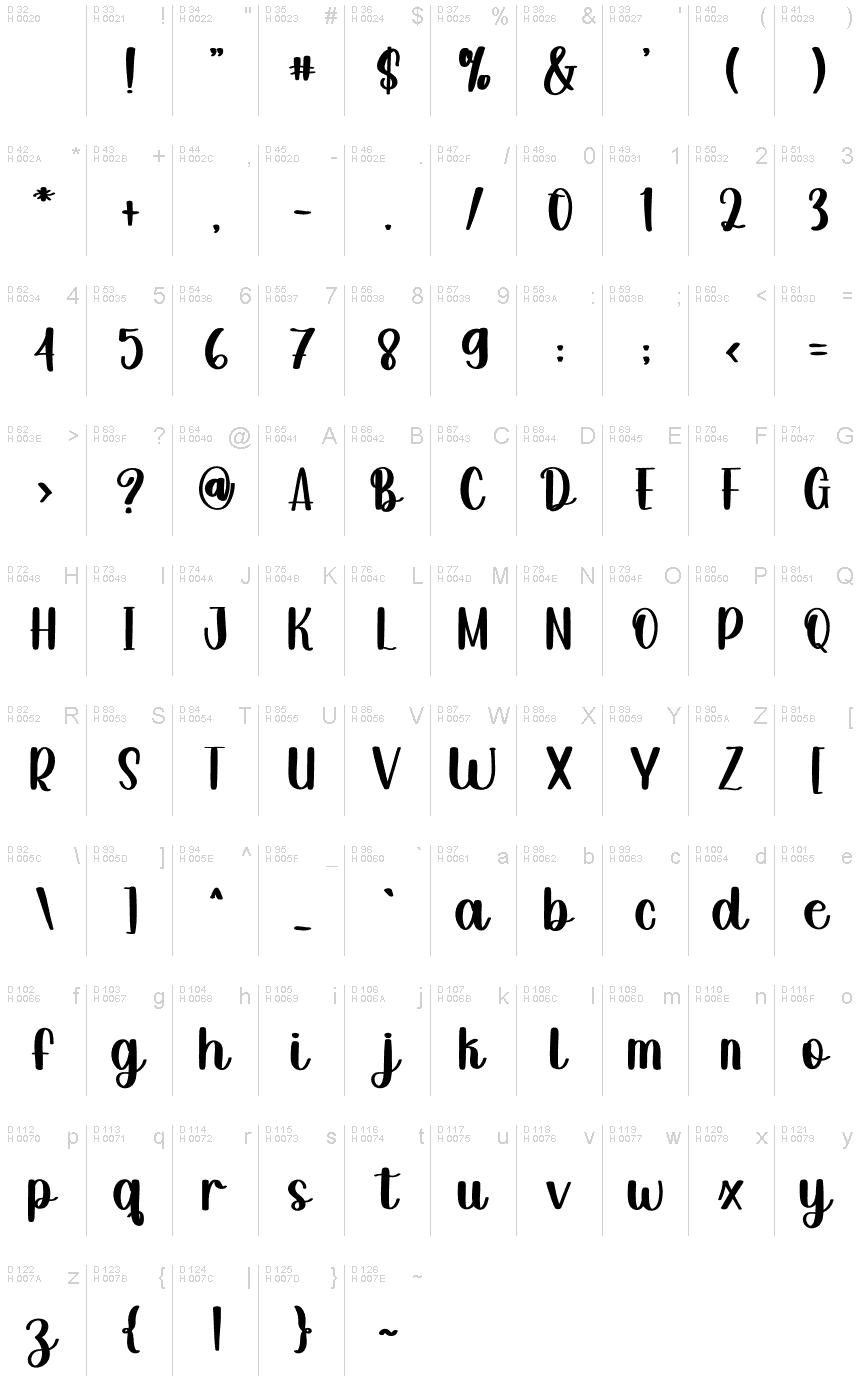
Christmas Is Coming
Experience the magic of the holiday season with Christmas Is Coming, a beautifully crafted semi-bold handwritten font designed by Inermedia Studio. Its playful and festive style is perfect for adding a touch of warmth and charm to your Christmas cards, posters, invitations, and gift tags. Use it to create eye-catching headlines or add a personal touch to your social media posts. The semi-bold font weight adds just the right amount of emphasis without overwhelming your design. Spread joy and cheer this holiday season with Christmas Is Coming!